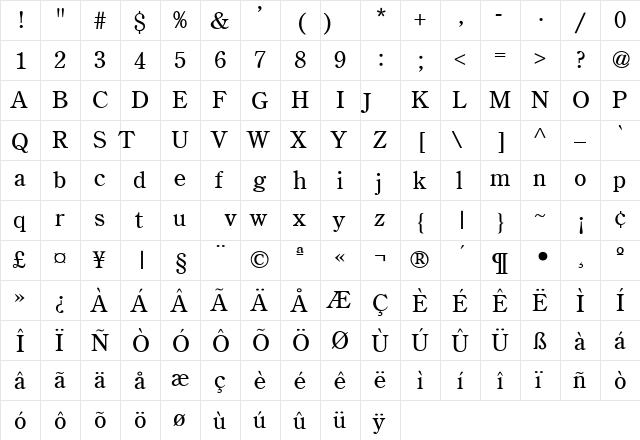
BackRoad Modern Regular
Design Context for BackRoad Modern Typeface
BackRoad Modern is a composed and adaptable typeface that performs quietly and consistently across a wide range of design contexts.
Pro Tip: Use BackRoad Modern in both headline and body roles to test its range before committing to a single application.